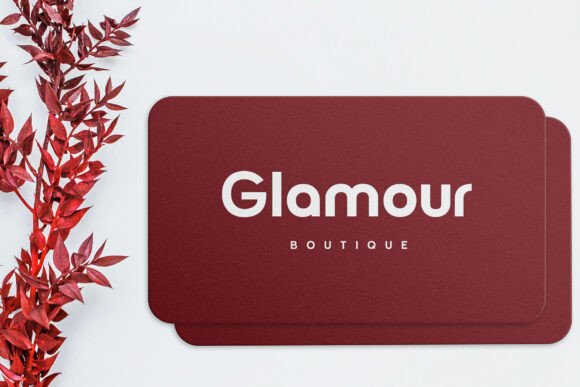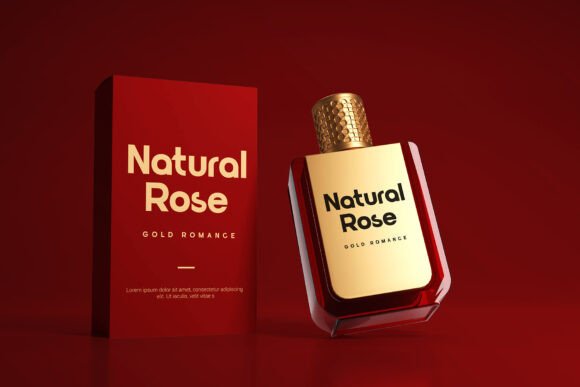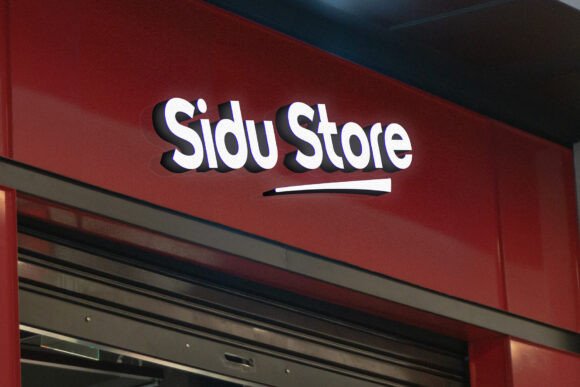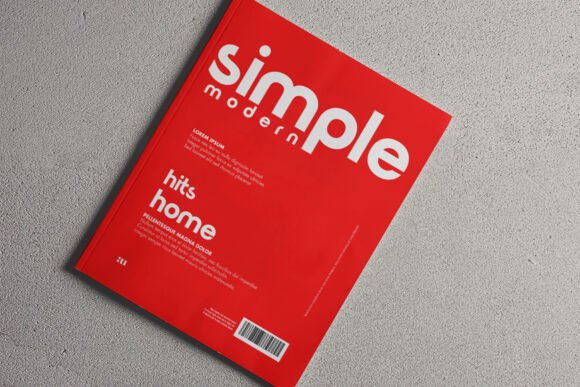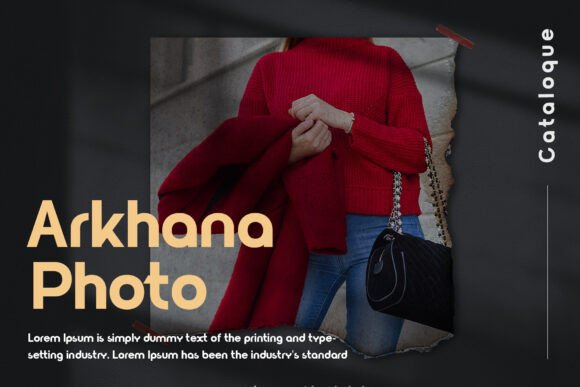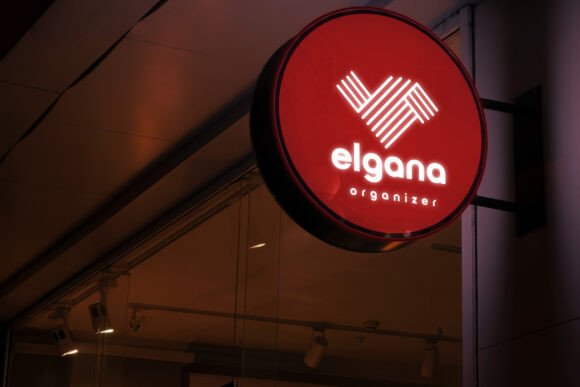
Introducing Deround Font: The Epitome of Modern Elegance
In the realm of typography, fonts play a pivotal role in shaping the visual identity of a brand, product, or editorial content. Among the myriad of fonts available, Deround stands out as a sleek and refined display font that has been gaining attention for its unique blend of soft curves and bold structure. This modern yet approachable aesthetic makes Deround an ideal choice for a wide range of design applications, from branding and editorial headlines to logo designs and high-end packaging.
The Design Philosophy Behind Deround
Deround’s design is rooted in the perfect balance between sophistication and readability. Its smooth, rounded letterforms exude a sense of elegance and professionalism, making it a standout choice for designers and crafters looking to elevate their projects. The font’s bold structure provides a sturdy foundation, while its soft curves add a touch of warmth and approachability. This harmonious blend of contrasting elements results in a font that is not only visually appealing but also highly versatile.
Applications of Deround Font
Deround’s versatility is one of its most compelling attributes. Here are some of the key areas where this font truly shines:
- Branding: Deround’s unique aesthetic makes it an excellent choice for branding projects. Its elegant simplicity and professional finish help create a lasting impression, making it ideal for logos, business cards, and other marketing materials.
- Editorial Headlines: The font’s bold structure and smooth curves make it perfect for editorial headlines, adding a touch of sophistication to articles, blog posts, and other written content.
- Logo Designs: Deround’s sleek and refined design makes it an excellent choice for logo designs. Its unique letterforms can help create a memorable and impactful logo that sets a brand apart.
- High-End Packaging: For high-end packaging, Deround’s elegant simplicity and professional finish make it an ideal choice. The font’s sophisticated aesthetic can help elevate the perceived value of a product, making it perfect for luxury brands.
Why Choose Deround Font?
With so many fonts available, why should designers and crafters choose Deround? Here are a few compelling reasons:
- Unique Aesthetic: Deround’s blend of soft curves and bold structure creates a unique aesthetic that sets it apart from other fonts.
- High Versatility: The font’s versatility makes it suitable for a wide range of design applications, from branding and editorial headlines to logo designs and high-end packaging.
- Professional Finish: Deround’s professional finish and elegant simplicity make it an excellent choice for designers and crafters looking to create high-end designs.
- Readability: Despite its bold structure, Deround remains highly readable, making it perfect for designs where clarity is essential.
Tips for Using Deround Font Effectively
To get the most out of Deround, here are a few tips for using the font effectively:
- Pair with Complementary Fonts: Deround pairs well with a variety of fonts. Experiment with different combinations to find the perfect match for your design.
- Use for Headlines and Titles: Deround’s bold structure and smooth curves make it perfect for headlines and titles. Use it to add a touch of sophistication to your designs.
- Experiment with Colors: Deround looks great in a variety of colors. Experiment with different color schemes to find the perfect match for your brand or design.
| Author | RHD Creative Studio |
Deround font is a sleek and refined display font that combines soft curves with bold structure, creating a modern yet approachable aesthetic. Its smooth, rounded letterforms are perfect for branding, editorial headlines, logo designs, and high-end packaging. With a professional finish and elegant simplicity, Deround effortlessly balances sophistication and readability, making it a standout choice for contemporary design projects. Whether you’re a designer or crafter, Deround is an excellent addition to your typography arsenal.